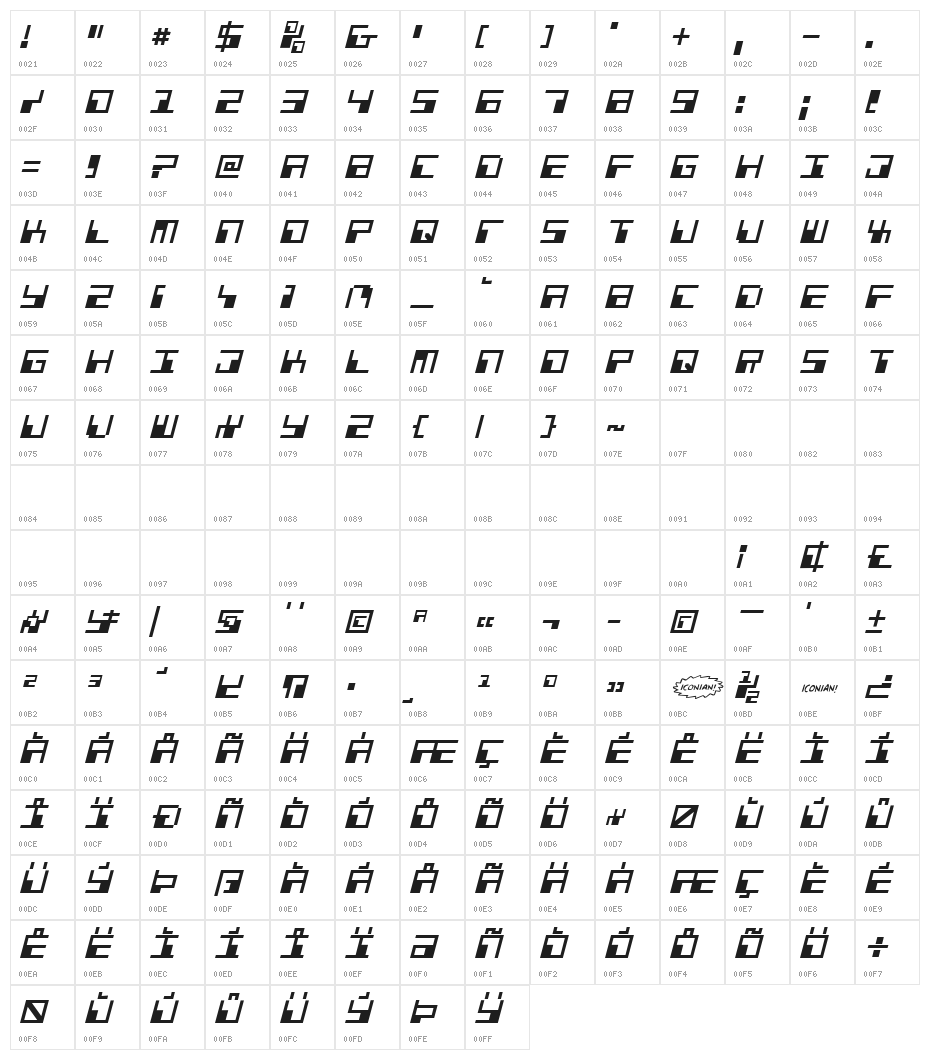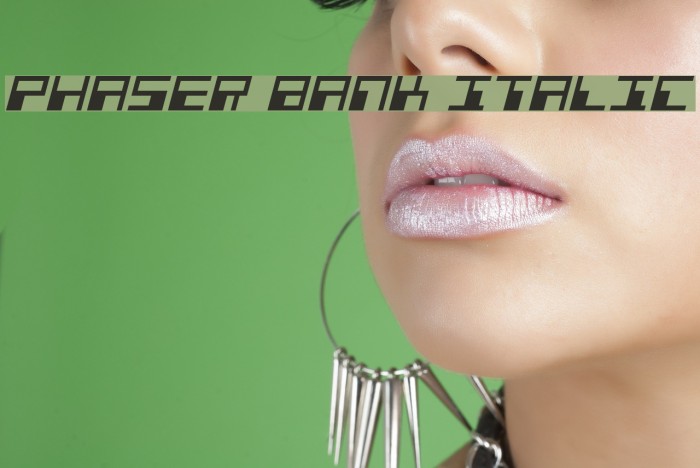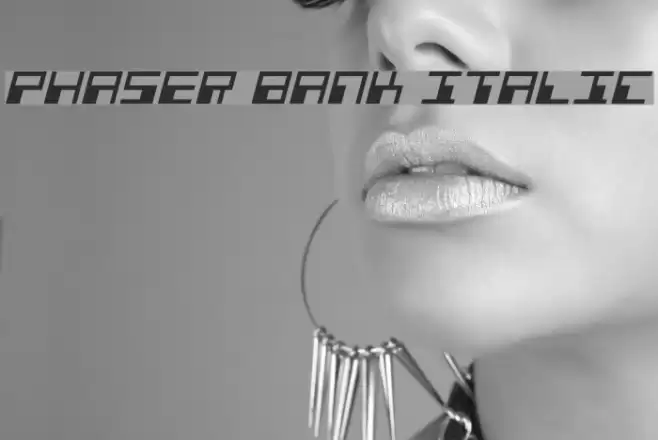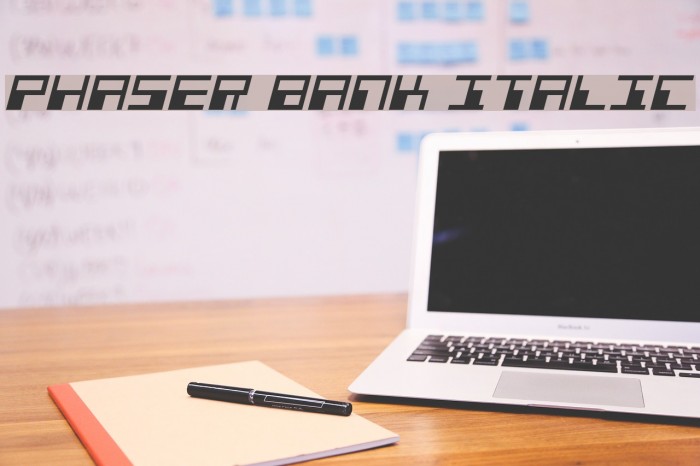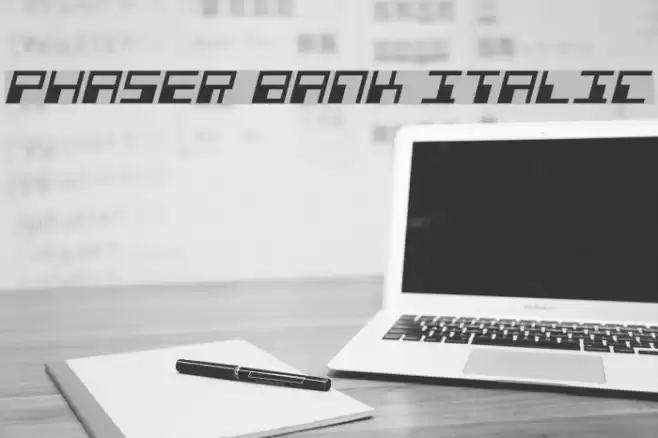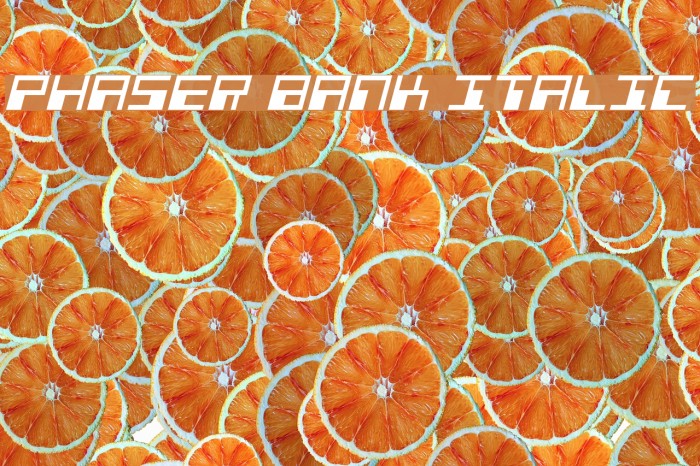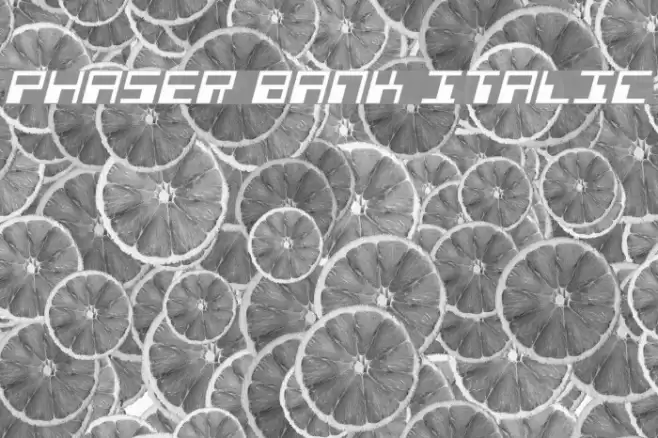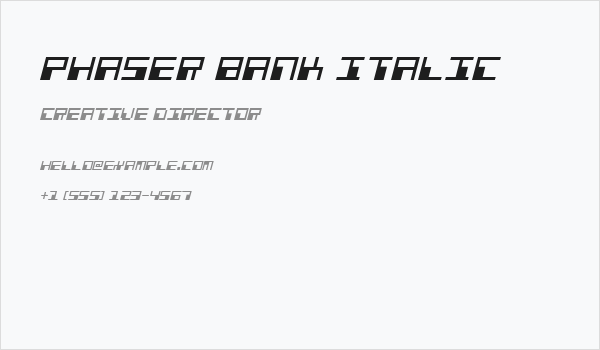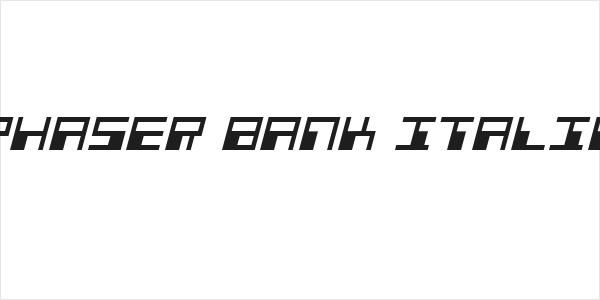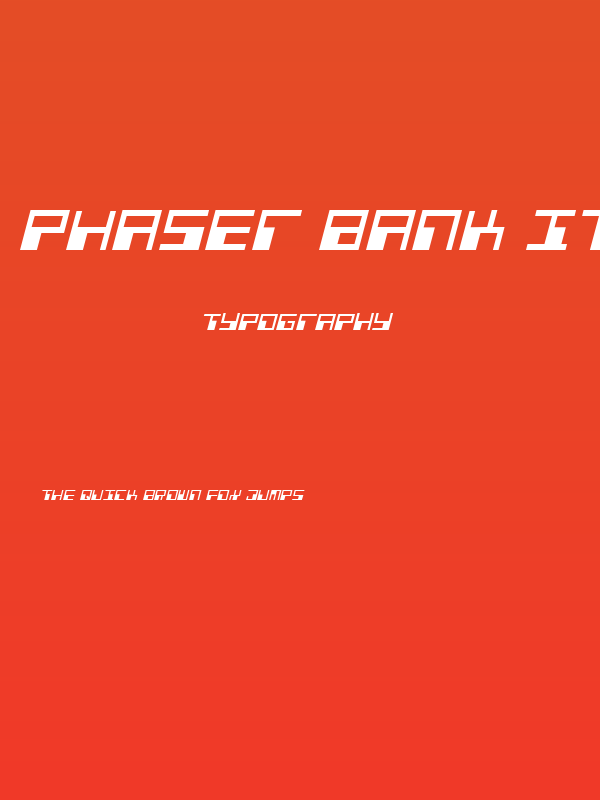
Phaser Bank Italic Font
Phaser Bank Italic Description
This font features a futuristic and angular design, characterized by its sharp edges and geometric shapes. The letters are slanted, giving an italicized appearance that adds a sense of motion and dynamism. The uppercase and lowercase letters maintain a consistent style, with a bold and assertive presence. The numerals and special characters follow the same angular theme, ensuring uniformity across all glyphs. This font's unique style makes it stand out, ideal for projects that require a modern and edgy look.
Proposed ProjectsIdeal for sci-fi themed designs, video game graphics, tech branding, and modern posters.